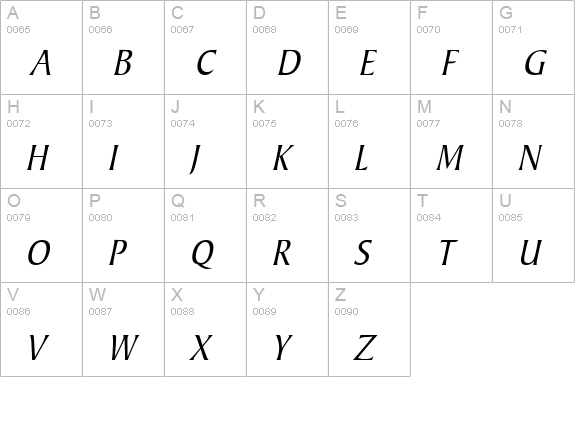
Barrett-Condensed Italic Font Details
Barrett-Condensed Italic is a distinctive, condensed-width, italic variant in the Barrett typeface family \xE2\x80\x94 well suited to design and typography projects.
Barrett-Condensed Italic font is a sleek and modern typeface that exudes elegance and sophistication. Its condensed form provides a clean and streamlined look, making it perfect for a wide range of design projects. The italic style adds a touch of flair and personality to your text, making it stand out from the crowd. And the best part? Barrett-Condensed Italic font is available for free download at FontsMarket.com. This means you can easily access this stylish font and use it in your projects without any cost. Whether you're working on branding, advertising, or editorial design, Barrett-Condensed Italic font is a versatile and eye-catching choice that will elevate your work to the next level. Download it today and add a touch of sophistication to your designs.